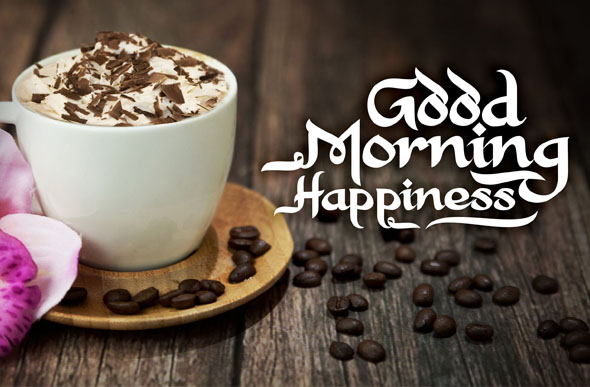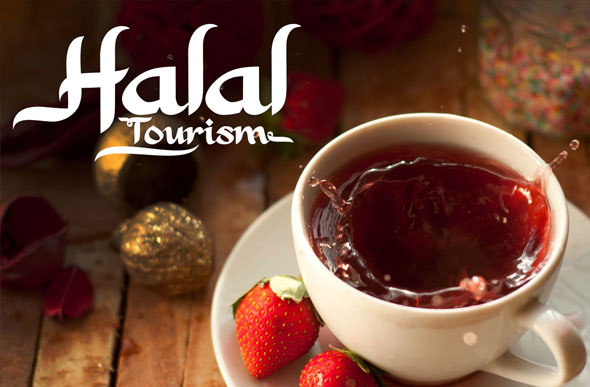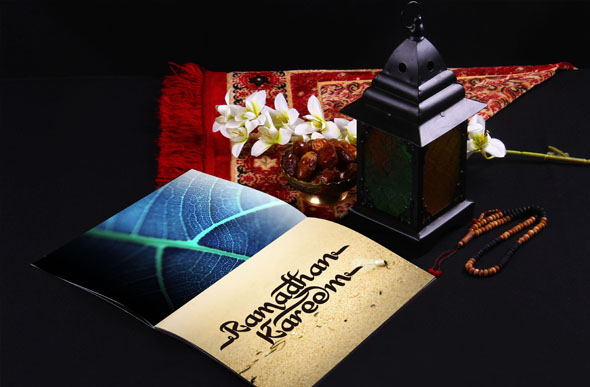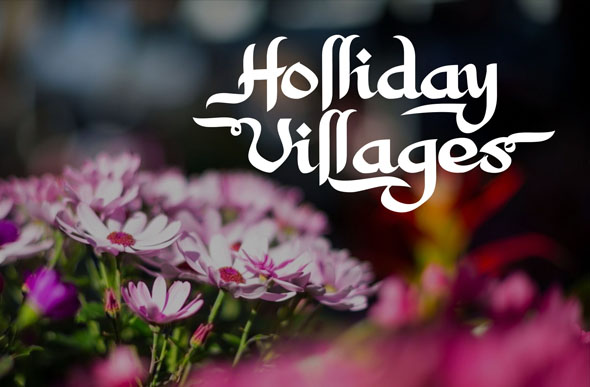
Alkhalam Font
About Alkhalam Font
Alkhalam is a modern typeface with a bold style. Alkhalam can be used for various purposes such as headings, posters, logos, invitations, t-shirts, letterhead’s, signage’s, news, posters, badges, labels and much more!